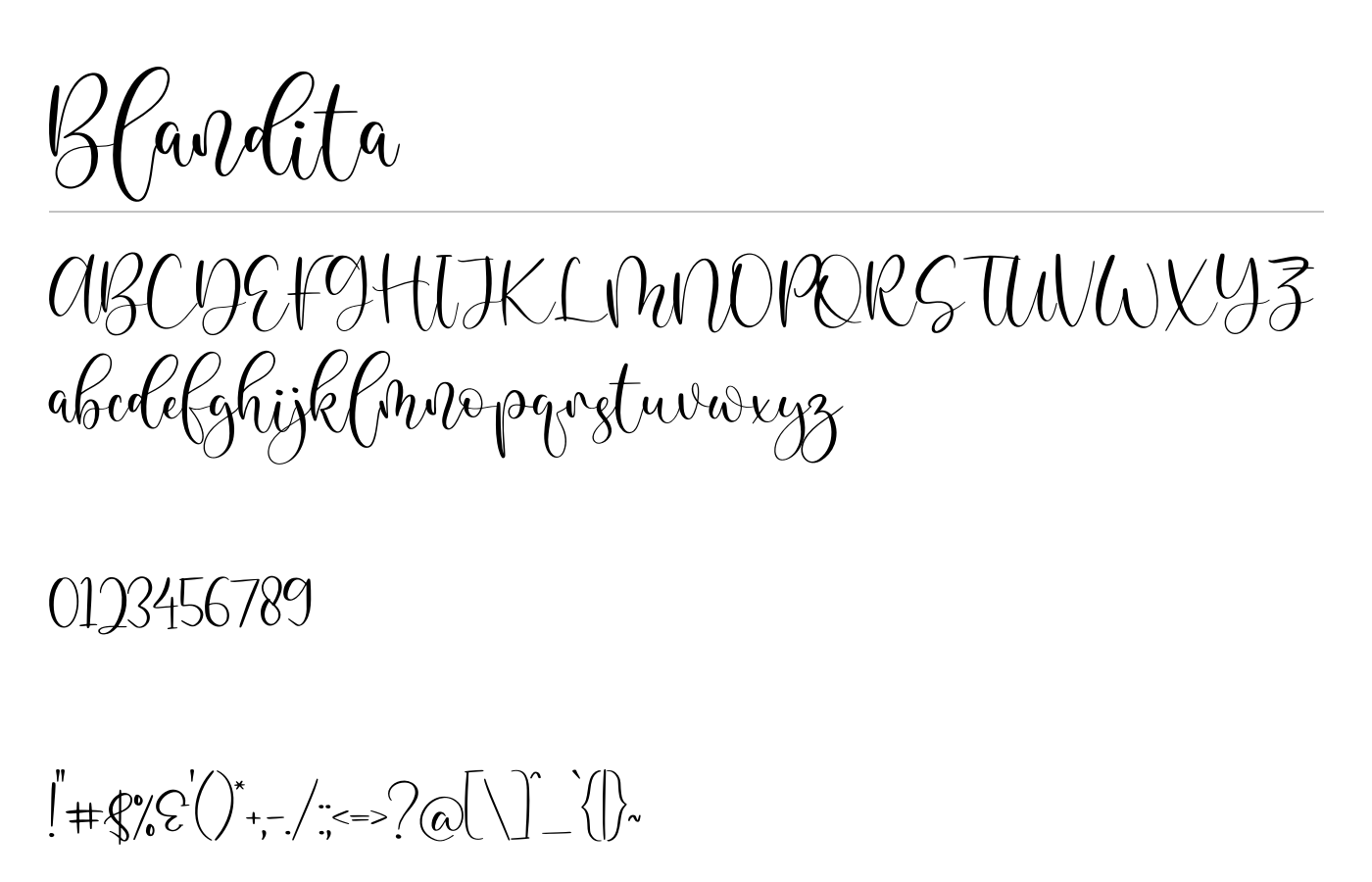
Blandita is a delicate, handwritten script font with a graceful, flowing style that combines light, smooth strokes with playful flourishes. Its elegant yet casual feel makes it perfect for invitations, branding, and any design that aims to convey warmth and creativity. This font works especially well in projects where a personal, artistic touch is desired.
Blandita Font